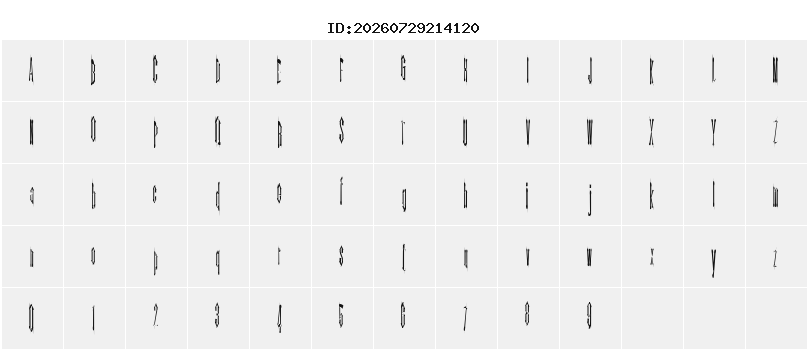
Kinderfeld.ttf is a modern, elegant sans-serif font designed for ultimate readability and visual harmony. Perfect for branding, headlines, web design, and print materials.